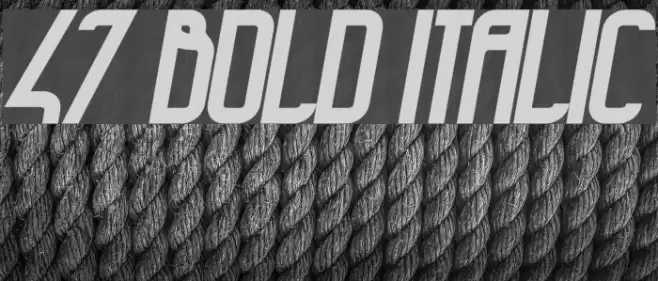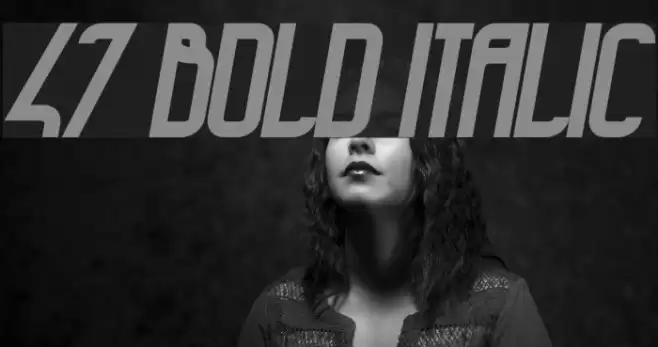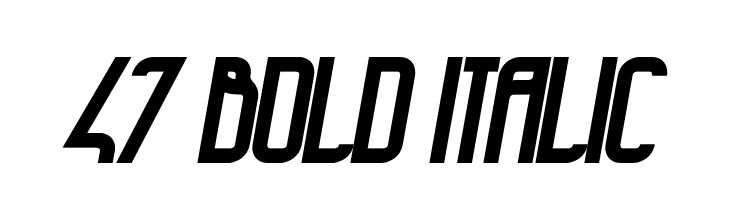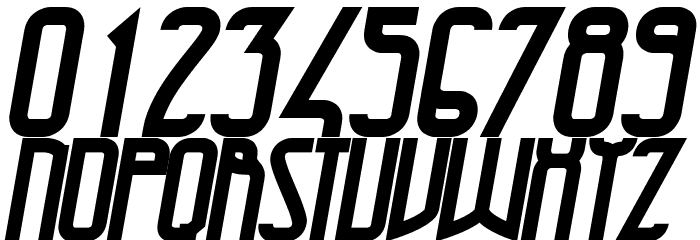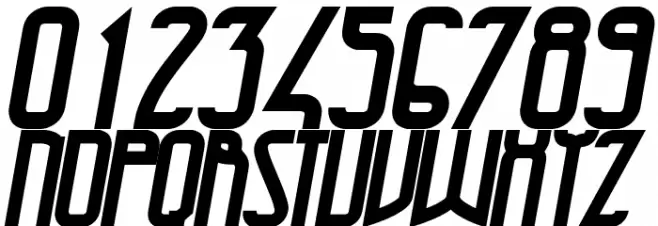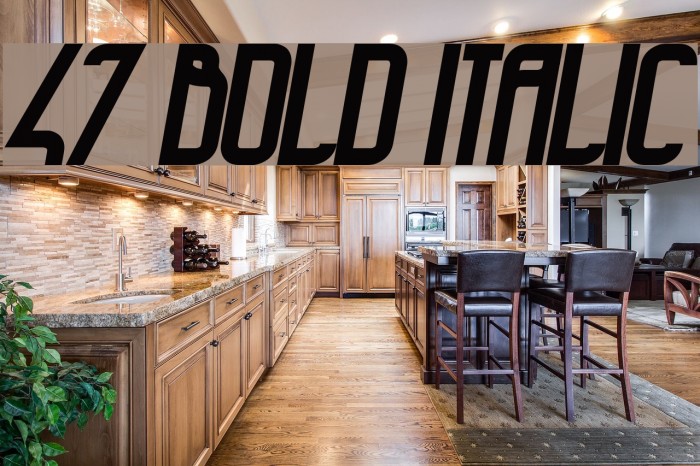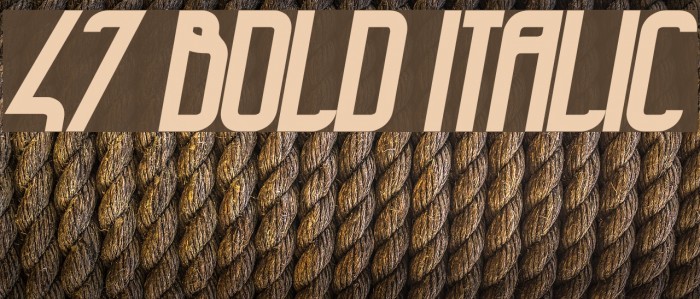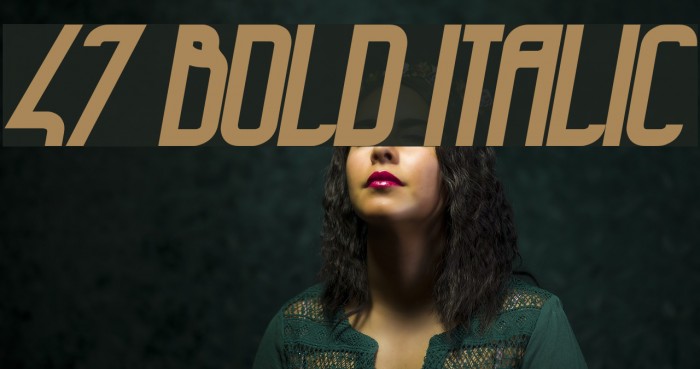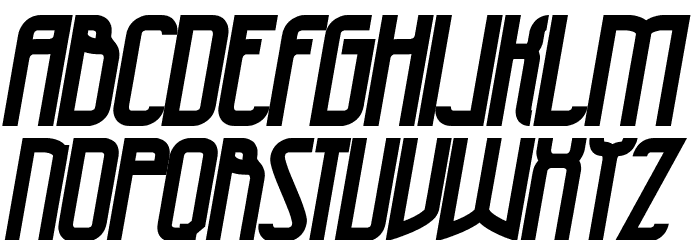
47 Bold Italic Font
47 Bold Italic Description
This font features a bold and italicized style with a modern and dynamic appearance. The characters are elongated and slightly condensed, giving a sleek and streamlined look. The strokes are thick, providing a strong visual impact, while the italic slant adds a sense of motion and energy. The uppercase and lowercase letters maintain a consistent style, with sharp angles and clean lines. The numbers are similarly styled, ensuring uniformity across all characters. This font is well-suited for projects that require a bold statement and a contemporary feel.
A bold, italicized font with a modern and dynamic style from Uncategorized fonts.